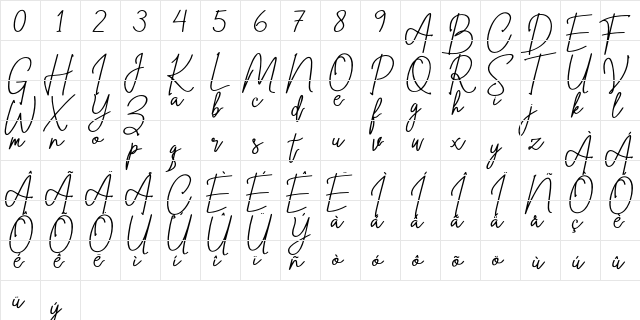
steelystico - PERSONAL USE ONLY Regular
| Designer | Galih Sulistya Aji |
steelystico - PERSONAL USE ONLY is a composed and adaptable typeface that performs quietly and consistently across a wide range of design contexts.